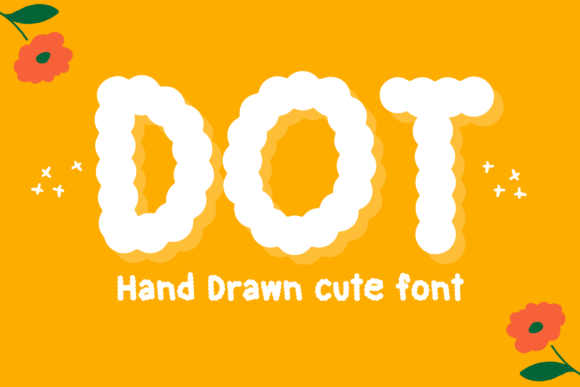
Introducing Dot Font, the best font for tattoo script that will add a touch of playfulness and charm to your designs. Created by k2cstudio, this display font is perfect for anyone looking to elevate their creativity and make a statement.
Dot Font is more than just a font, it's a fun and unique way to express yourself. With its bubbly and cute design, Dot Font is sure to bring a smile to anyone's face. Whether you're designing party invitations, creating a logo for a brand, or just looking for a font to make your social media posts stand out, Dot Font has got you covered.
This font is perfect for those looking to add a touch of youth and joy to their designs. It's versatile and can be used for a variety of purposes, making it a must-have in any designer's toolkit. Its playful curves and vibrant energy make it ideal for projects that require a fun and lighthearted touch.
Dot Font is more than just a font, it's a statement. It's a way to show the world that you're not afraid to have a little fun and be yourself. So why settle for boring and generic fonts when you can have a font that truly embodies who you are?
In conclusion, if you're looking for a font that will help your designs stand out and add a touch of fun and playfulness, then Dot Font is the perfect choice. Download it today and see for yourself why it's the best font for tattoo script and so much more.